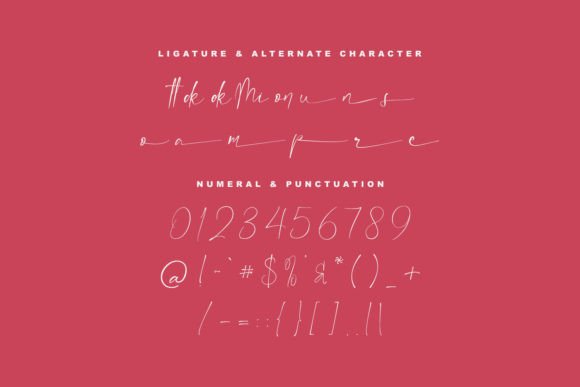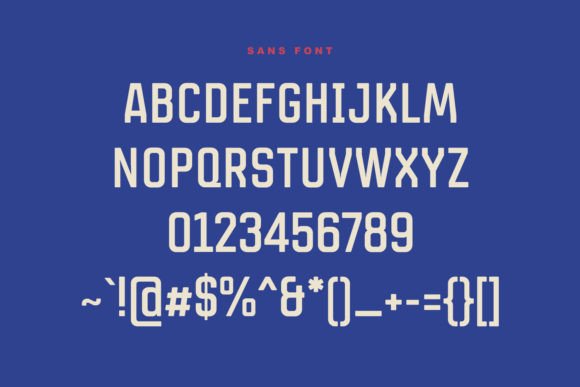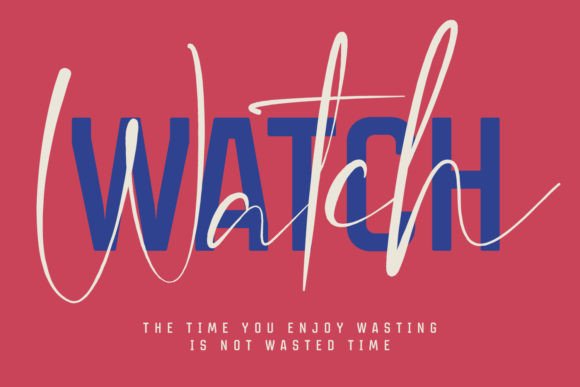
Introduction to Sains Font
Have you ever stared at a blank page, searching for the perfect font to bring your creative project to life? The blank page stares back, taunting you with its emptiness. It’s a feeling many designers know all too well. But what if you could give your designs a unique, high-quality touch that sets them apart from the rest?
That’s where Sains Font comes in – a stunning design resource that’s sure to elevate your creative game. With its authentic brush-handcrafted feel, Sains Font is the perfect choice for signature, stationery, logo, typography quotes, website headers, branding, and more. And the best part? It’s available for free download, complete with a transparent background that makes it easy to integrate into your design.
Key Features of Sains Font
- High-quality design resource suitable for various creative projects, including logos, branding, and graphics.
- Features a transparent background, making it easy to use in complex design compositions.
- Includes a range of font styles and weights, offering versatility for different design applications.
- Designed with precision and attention to detail, ensuring a professional and polished look.
Honest Review: Sains Font
I recently stumbled upon the Sains Font while searching for a high-quality design resource for a creative project. As a designer, I was excited to explore this new font and see if it met my expectations.
What works well about Sains Font is its versatility. It comes in a variety of weights and styles, making it perfect for a range of design applications, from headings to body text. The font also features a transparent background, which is ideal for graphic designers who want to create visually appealing compositions.
- ✨ High-quality design with clean lines and a modern feel
- ✨ Versatile font with multiple weights and styles
- ✨ Transparent background for seamless composition
However, I did encounter some limitations with the Sains Font. The font’s lack of a bold weight can make it difficult to use in certain situations, such as when creating emphasis or highlighting important information.
Overall, I’m impressed with the Sains Font. Its high quality, versatility, and transparent background make it an excellent addition to any designer’s toolkit. While it may not be perfect, it’s a great resource for designers working on creative projects.
Sains Font